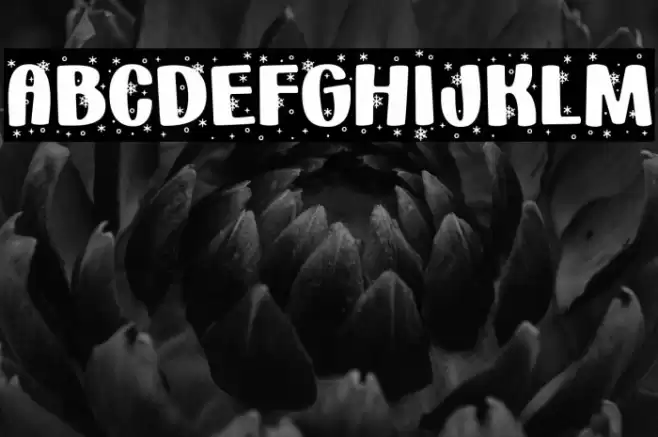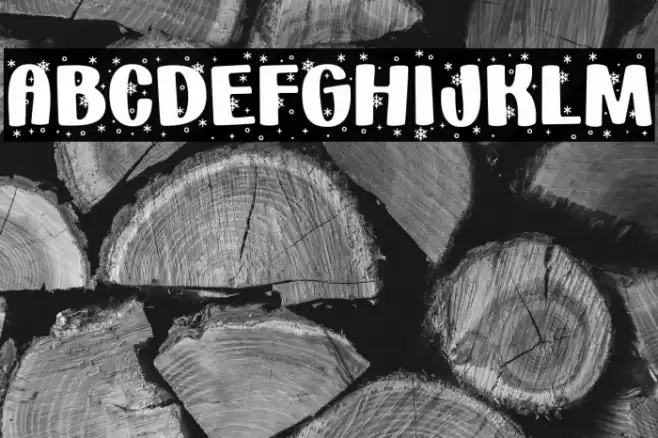
_Holiday * Snowflakes_ Regular Font
_Holiday * Snowflakes_ Regular Description
This playful and festive font features bold, rounded characters adorned with snowflake and dot patterns, evoking a cheerful holiday spirit. The uppercase and lowercase letters maintain a consistent style, with each character uniquely incorporating winter-themed elements. The font's whimsical nature makes it ideal for seasonal designs, capturing the essence of winter festivities. Its decorative style is both eye-catching and joyful, perfect for projects that require a touch of holiday magic. The characters are evenly spaced, ensuring readability while maintaining a fun and engaging appearance.
A festive, snowflake-adorned font perfect for holiday-themed designs from Uncategorized fonts.
- Proposed Projects: Ideal for holiday cards, festive banners, winter-themed posters, and seasonal marketing materials.